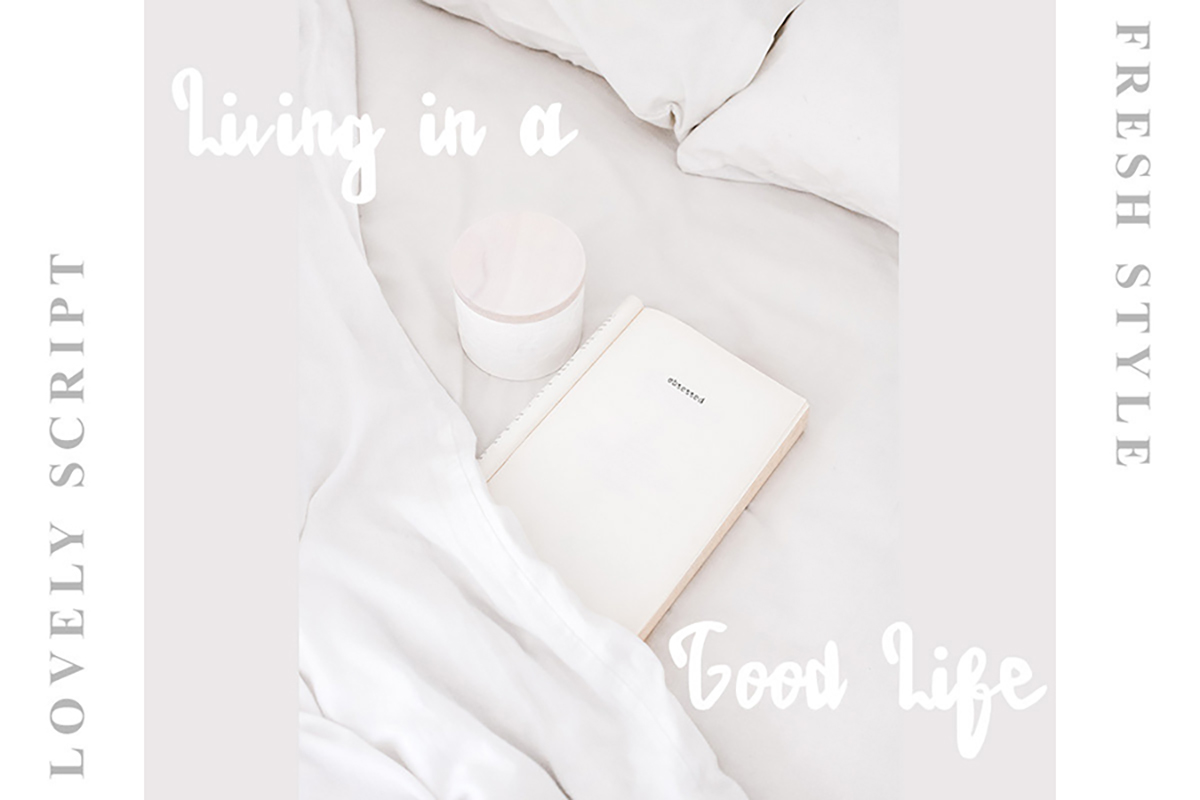
Estrellasa Modern Script Font
Estrellasa Modern Script Font is a modern, unusual handwritten font that has a minimalist and bold style. This font is very suitable for creating various design projects that require a scripted font. These can be posters, wedding invitations, cards, branding, flyers, prints, and more. Improve the quality and memorability of your projects using this cool font. If you wish to access more features and use them for commercial work please buy the full version.